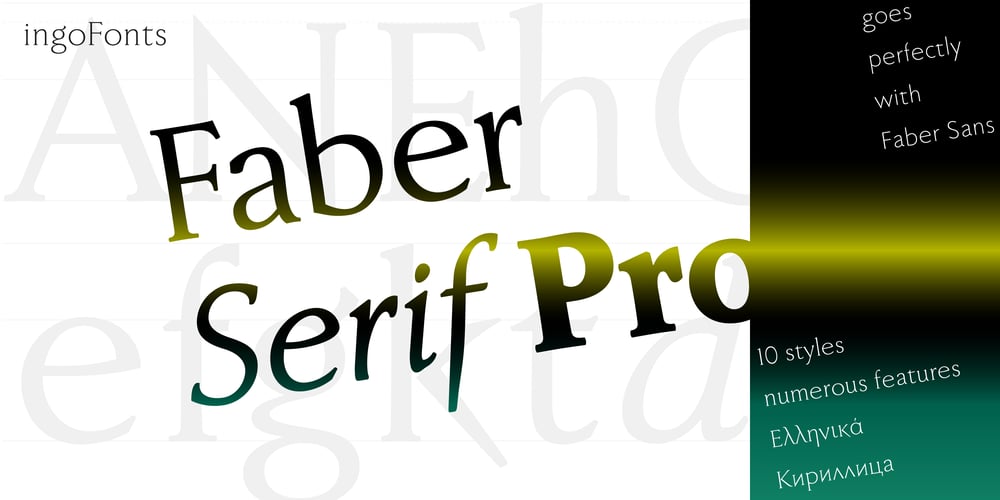
Faber Serif Pro Font Family was designed by Ingo Zimmermann and published by Ingo. Faber Serif Pro contains 10 styles and family package options. Faber Serif is the Roman typeface which was born out of the sans serif design Faber Sans. The proportions are nearly identical to those of Faber Sans.In comparison, Faber Serif has heavy — although very short — serifs. The character of contrasting strokes is not very pronounced; therefore, this font is closely related to the first Roman typefaces from the 15th century. Faber Serif perfectly matches with Faber Sans!